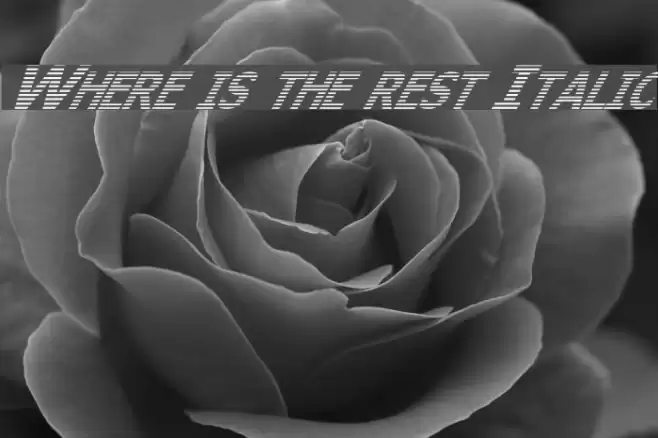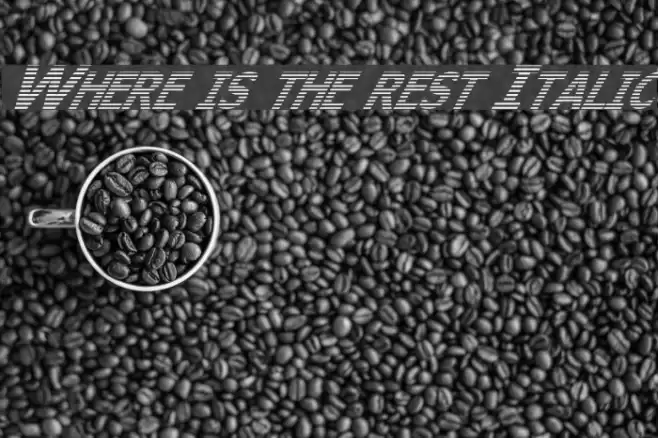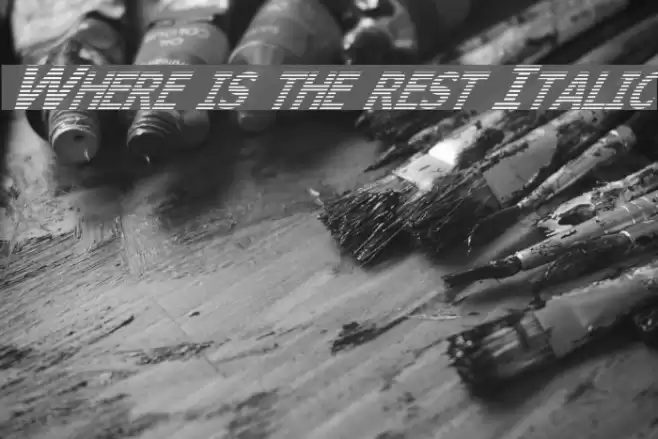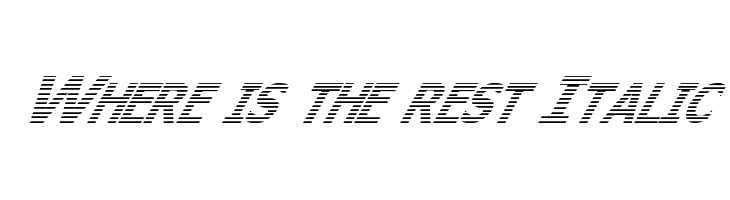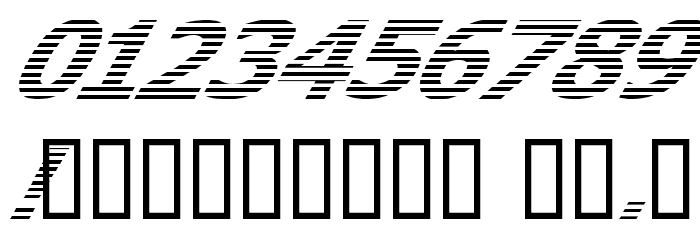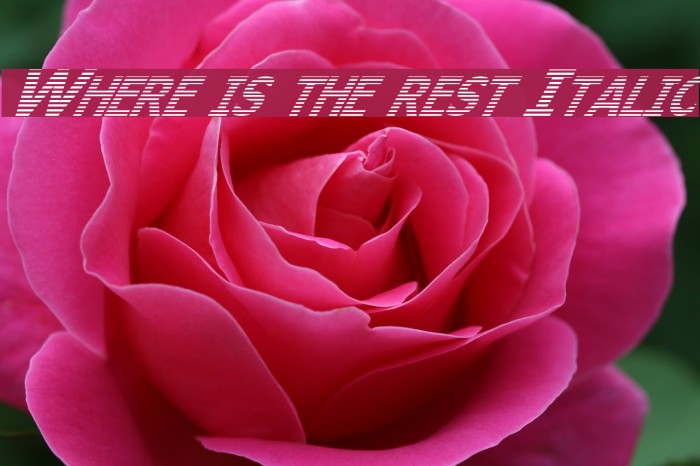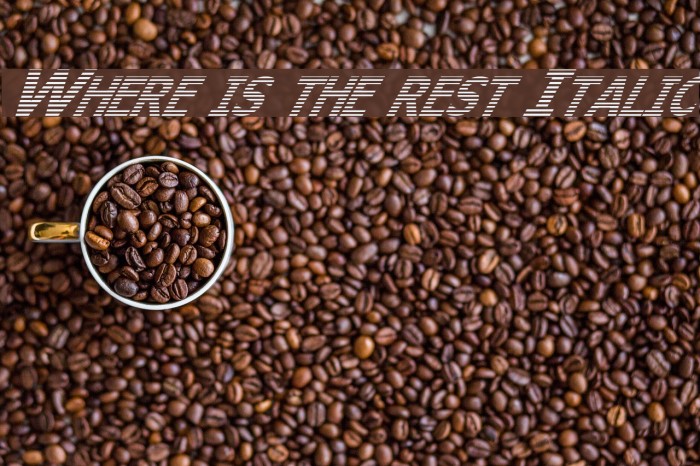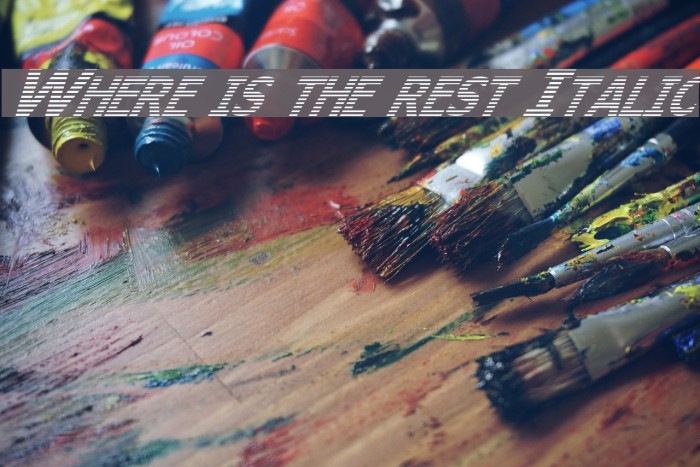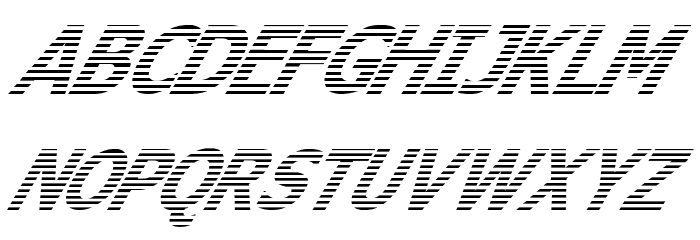
Where is the rest Italic Font
Where is the rest Italic Description
This font features a dynamic and modern italic style with a distinct striped pattern running through each character. The uppercase and lowercase letters are designed with a forward-leaning slant, giving a sense of motion and speed. The numerals and special characters maintain this cohesive style, ensuring consistency across all glyphs. The striped design adds a unique visual texture, making it stand out for creative and bold applications. Its geometric and clean lines suggest a futuristic and innovative feel, suitable for projects that aim to capture attention and convey a sense of progress.
A modern italic font with a unique striped pattern and dynamic slant from Crazy fonts.
- Proposed Projects: Ideal for branding, advertising, sports team logos, and futuristic design projects.